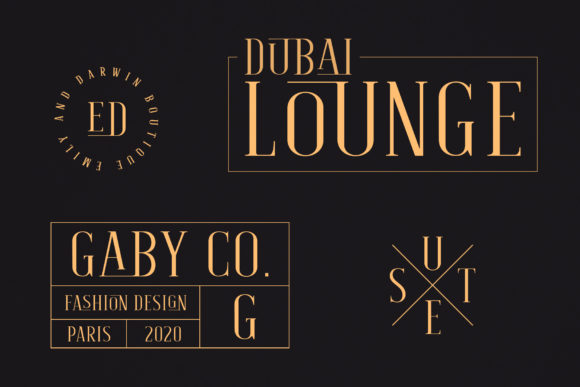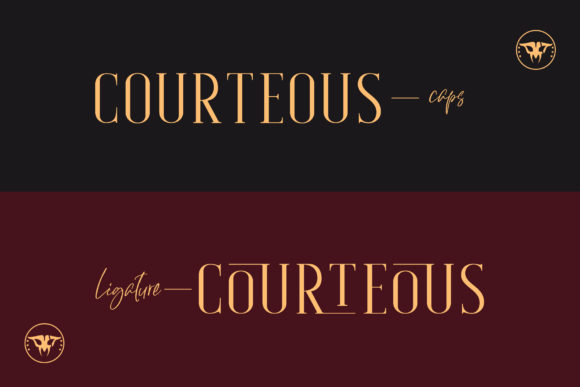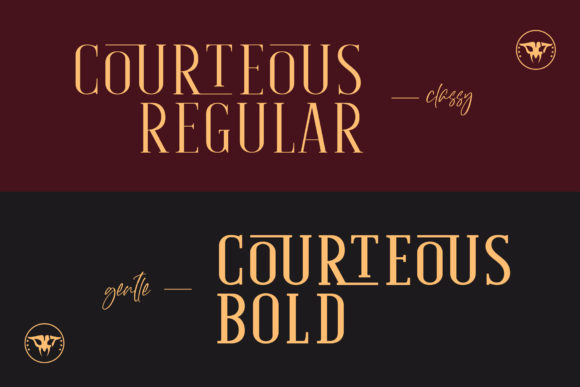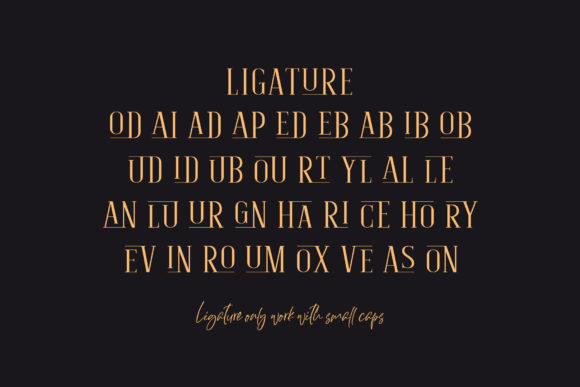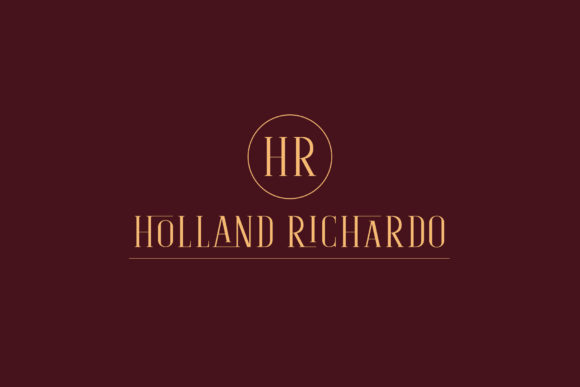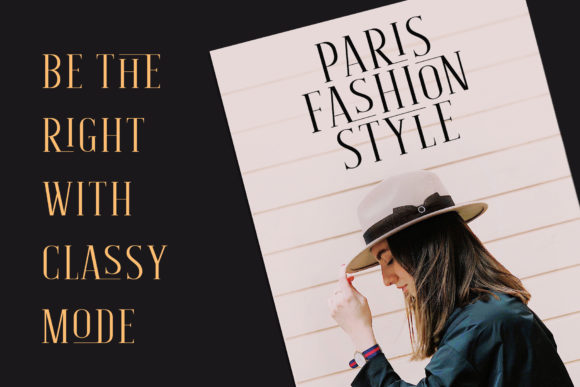
Courteous Font: Elevate Your Design with a Touch of Professionalism
In the world of typography, fonts play a crucial role in conveying the tone and personality of a design. For designers and crafters, selecting the right font can make all the difference in creating a visually appealing and effective design. If you’re looking for a font that exudes professionalism and sophistication, look no further than Courteous Font. In this article, we’ll explore the features and benefits of Courteous Font, and how it can elevate your design to the next level.
What is Courteous Font?
Courteous Font is a semi-condensed serif font that boasts a consistent shape in every letter, giving it a unique and distinctive look. The font’s design is characterized by its elegant and refined lines, making it perfect for designs that require a touch of sophistication. Whether you’re working on a branding project, a website, or a print design, Courteous Font is sure to impress.
Key Features of Courteous Font
- Semi-condensed design: Courteous Font features a semi-condensed design, making it perfect for designs where space is limited. The font’s compact design ensures that your text remains clear and legible, even at smaller sizes.
- Serif font: As a serif font, Courteous Font features small lines or flourishes at the ends of each letter, giving it a classic and timeless look. The serif design adds a touch of elegance and sophistication to any design.
- Consistent shape: One of the standout features of Courteous Font is its consistent shape in every letter. This ensures that your text remains cohesive and visually appealing, making it perfect for designs where typography is a key element.
Benefits of Using Courteous Font
So, why should you choose Courteous Font for your next design project? Here are just a few benefits of using this versatile and elegant font:
- Professional feel: Courteous Font is designed to give your design a professional feel, making it perfect for businesses, organizations, and individuals who want to convey a sense of sophistication and elegance.
- Versatility: Courteous Font is a versatile font that can be used in a variety of design projects, from branding and advertising to websites and print designs.
- Easy to read: Despite its elegant design, Courteous Font is easy to read, making it perfect for designs where legibility is key.
How to Use Courteous Font in Your Design
Using Courteous Font in your design is easy. Here are a few tips to get you started:
- Pair it with other fonts: Courteous Font pairs well with other fonts, making it easy to create a unique and visually appealing typography scheme.
- Experiment with sizes: Don’t be afraid to experiment with different font sizes to create visual interest and hierarchy in your design.
- Use it for headings and body text: Courteous Font is suitable for both headings and body text, making it a great choice for designs where typography is a key element.
In conclusion, Courteous Font is a versatile and elegant font that can elevate your design to the next level. With its semi-condensed design, serif font, and consistent shape, Courteous Font is perfect for designs that require a touch of sophistication and professionalism. Whether you’re a designer, crafter, or simply someone who appreciates good typography, Courteous Font is definitely worth checking out.